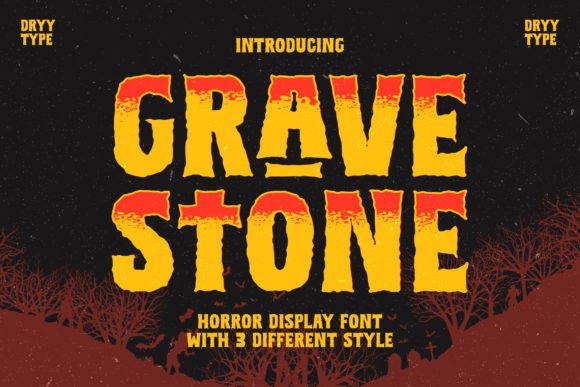
In the eerie realm of darkness, where shadows dance and whispers haunt the air, there lies a font that embodies the essence of horror and intrigue: Gravestone Font. This masterpiece, crafted by the skilled hands of Dryy.type, is a testament to the power of typography in capturing the essence of the macabre.
Immerse yourself in the world of horror and let Gravestone Font guide you through a journey of spine-tingling creativity. Each meticulously designed letterform oozes with a haunting beauty, reminiscent of ancient tombstones weathered by time and etched with tales of the departed.
Unleash your imagination and let Gravestone Font cast its spell on your designs. Whether you're creating posters for haunted houses, designing websites for horror games, or crafting invitations for Halloween parties, this font will add a touch of the supernatural to your creations.
Beyond its spooky charm, Gravestone Font is also a remarkably versatile typeface. Its unique character set, featuring a blend of sharp angles and organic curves, lends itself to a wide range of design applications. From album covers to social media graphics, from movie titles to clothing designs, the possibilities are endless.
Step into the realm of the supernatural and let Gravestone Font ignite your creative spark. With its versatility and captivating horror-inspired aesthetic, this font will elevate your designs to the highest level, leaving your audience spellbound.